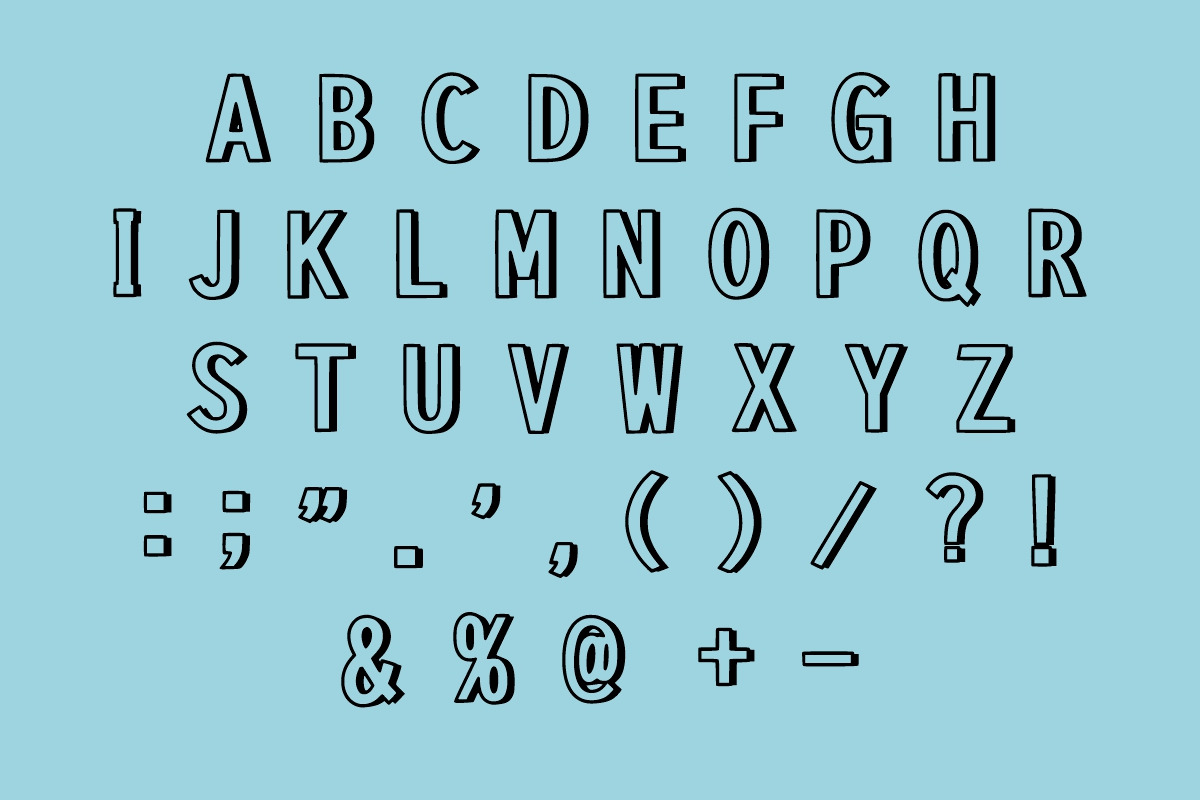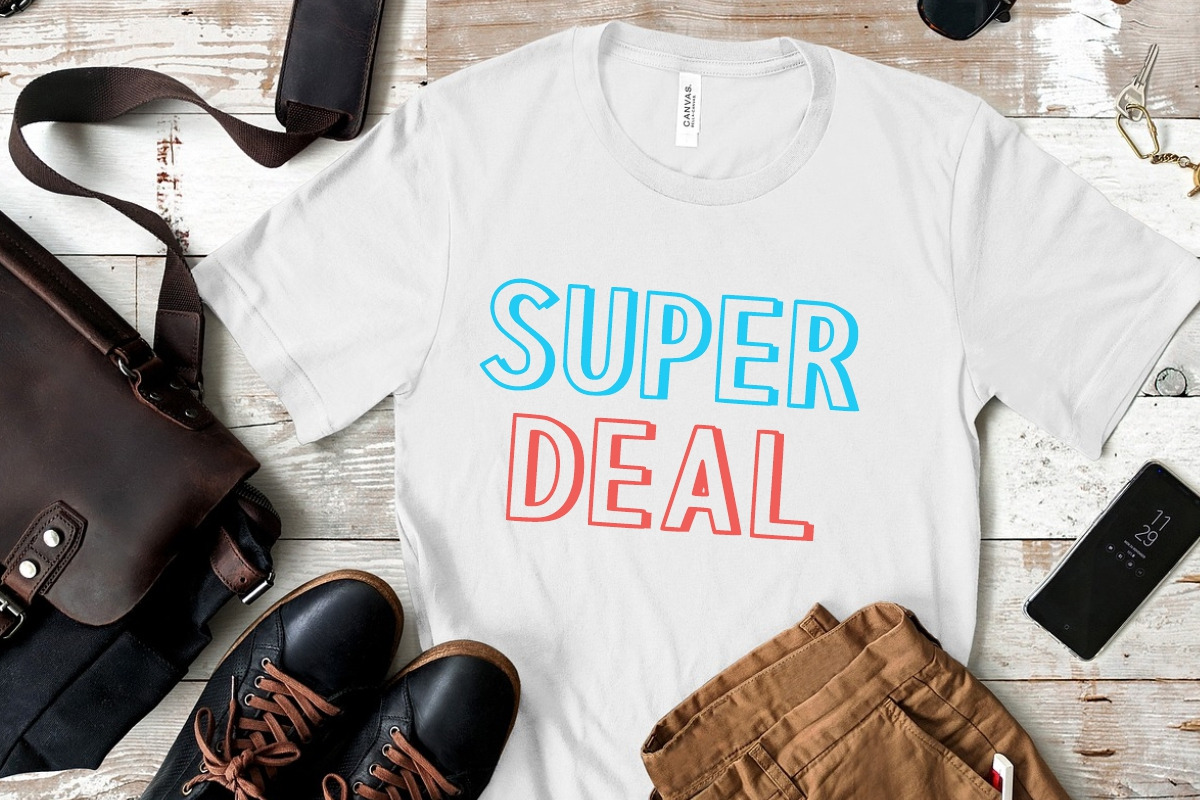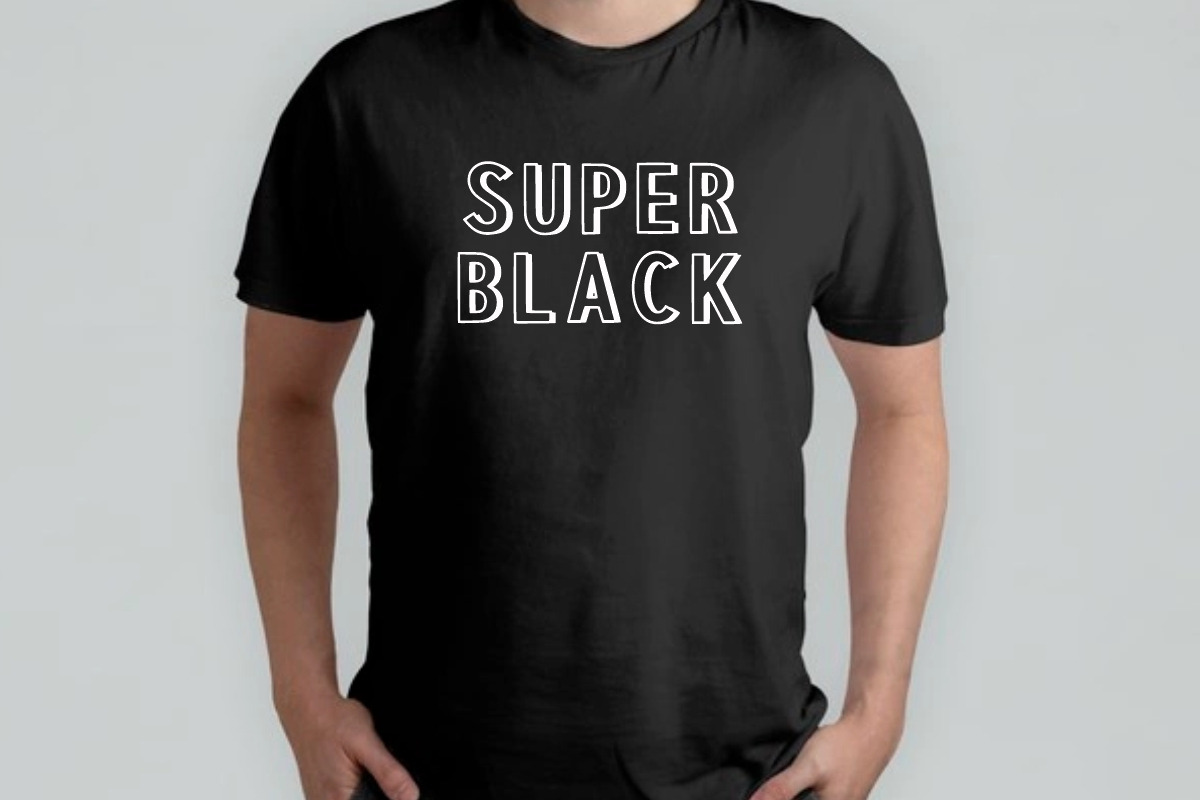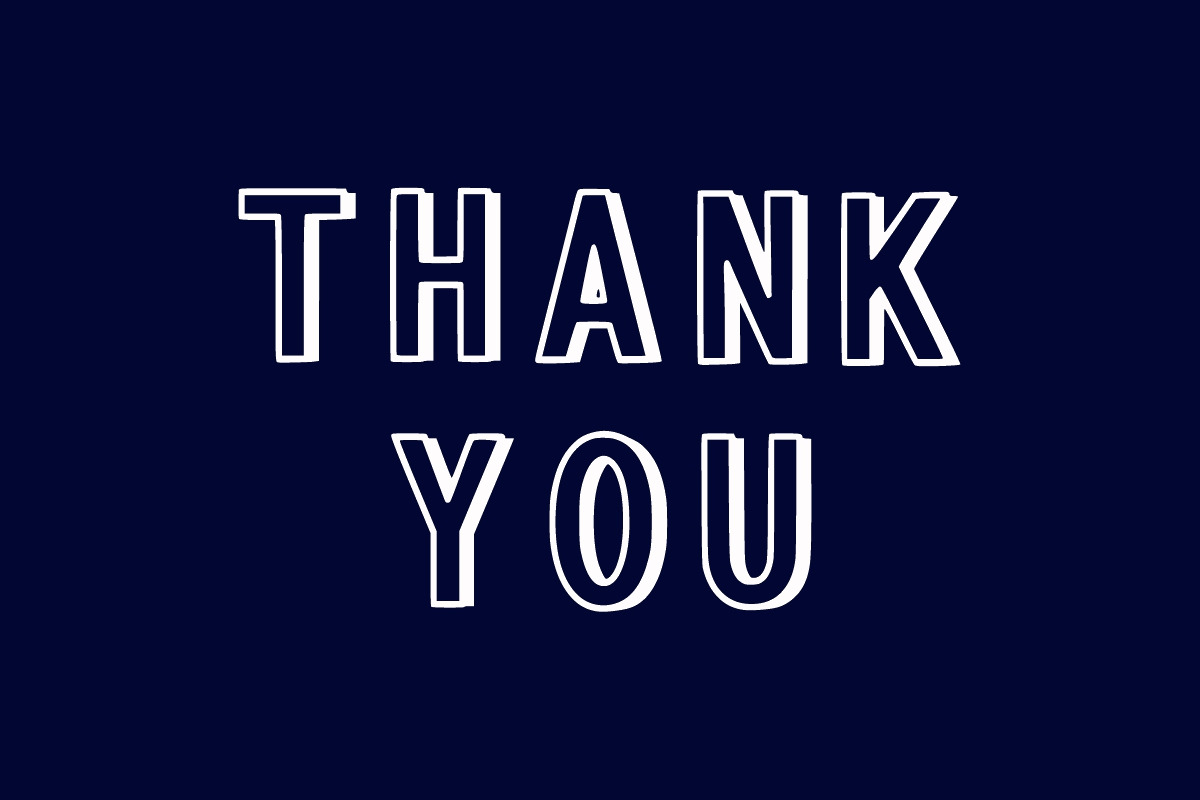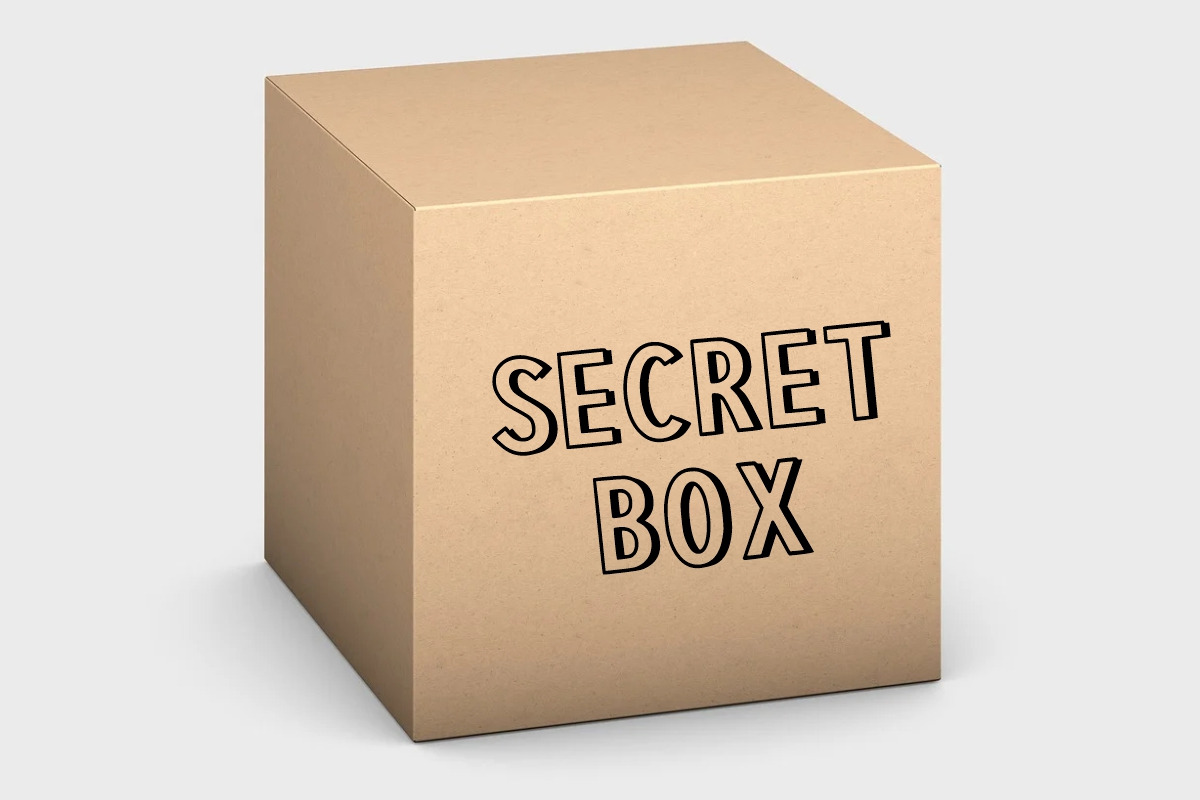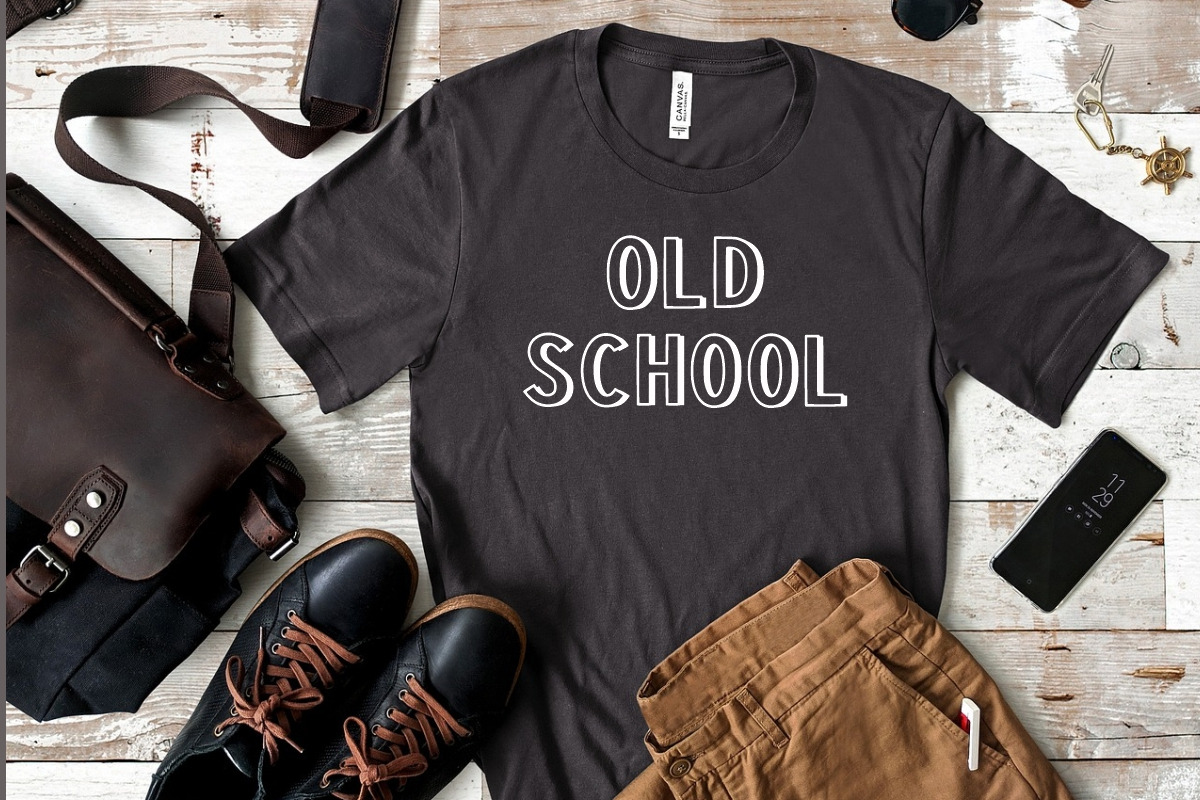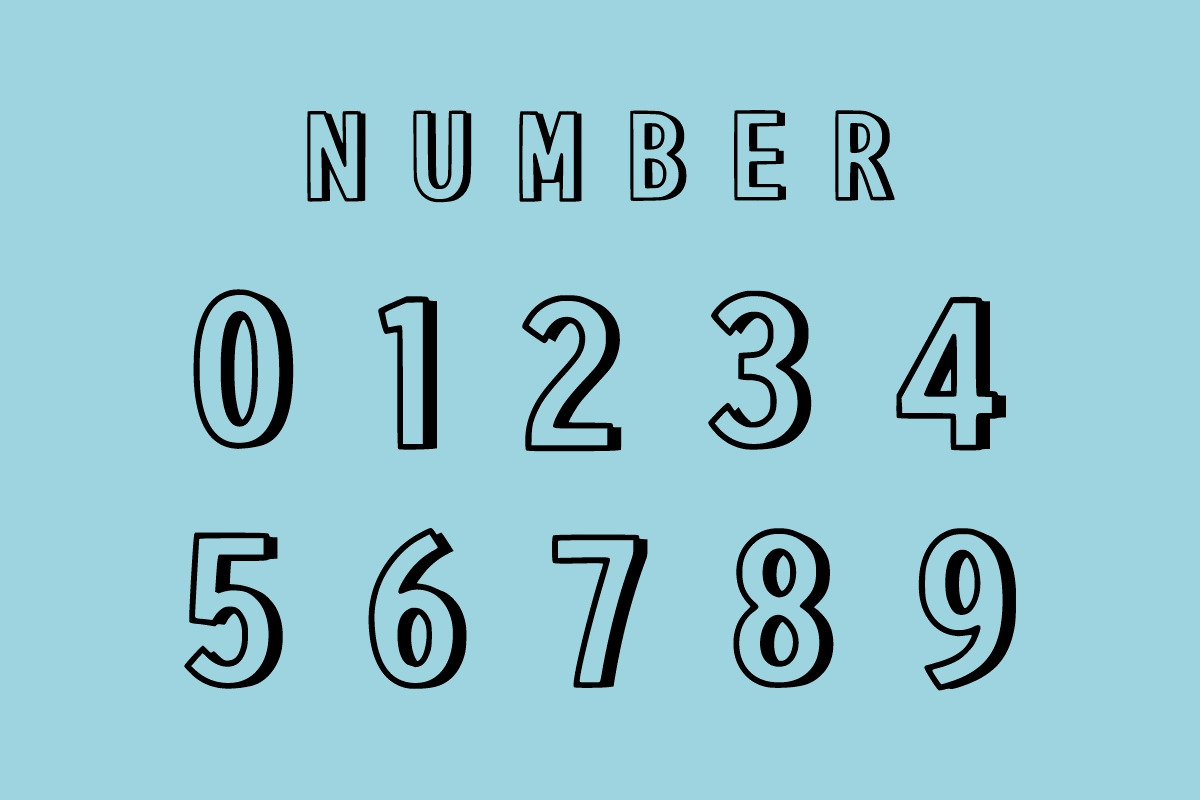
Kids Space
Kids Space is an assertive and outline-style display font. It is easy to read and conveys impeccable friendliness. Whether you’re using it for crafts, Kids Book, digital design, presentations, or making greeting cards and more